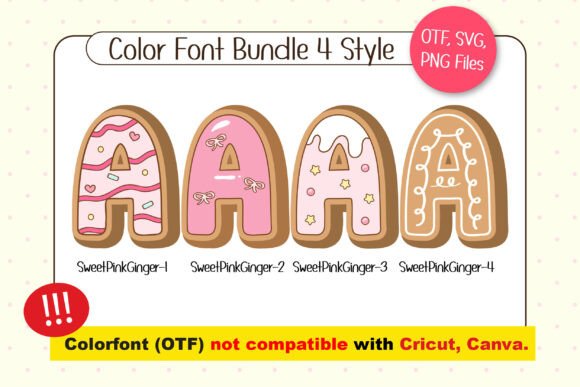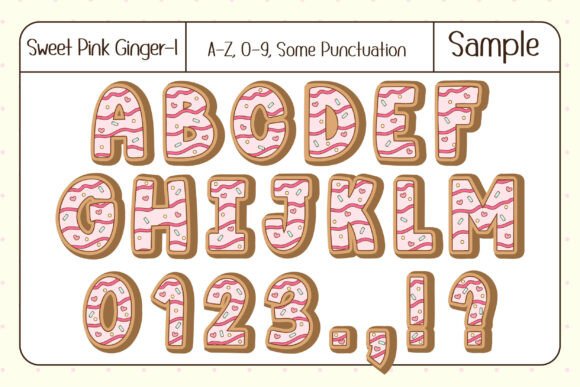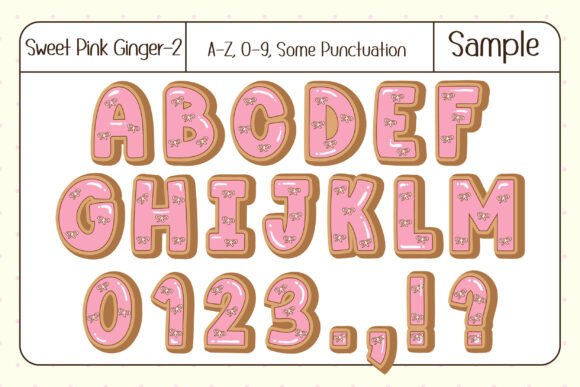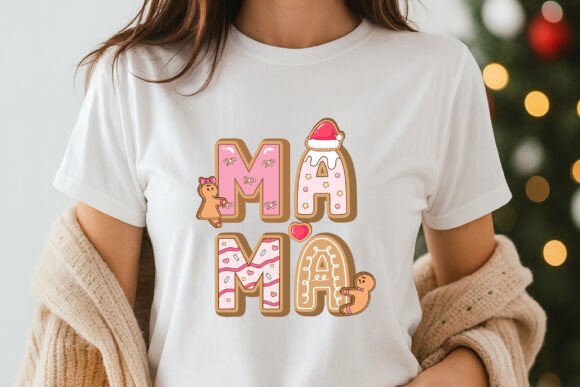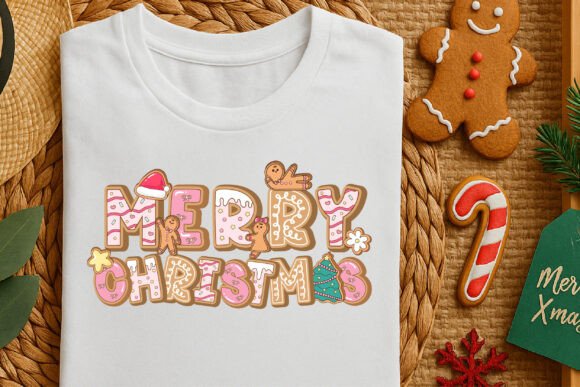
Sweet Pink Gingerbread Font
“Sweet Pink Gingerbread” is a delightful color font that combines the joyful spirit of Christmas with the charm of classic gingerbread cookies, reimagined in soft pastel pink tones for a fresh and modern festive look.
This adorable design adds a sweet and whimsical twist to traditional holiday colors, making it perfect for fun and creative projects. Featuring 4 color font styles and 20 matching doodles, “Sweet Pink Gingerbread” is ideal for Christmas posters, quotes, t-shirts, banners, party invitations, stickers, scrapbook pages, DIY crafts, custom names, and so much more. Add a pastel-pink sweetness to your Christmas designs!